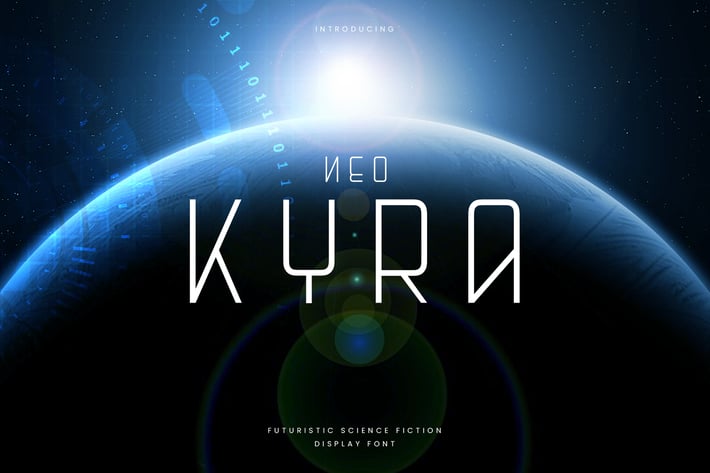
Neo Kyra - Technology Science Font
Introducing Neo Kyra font. Are you looking for a bold and solid display font that has a futuristic, science and space technology feeling? We can help! Try to download our Neo Kyra font. The font is suitable to use for many occasion such as game, science music, movie title, brand, technology, space and many more :)
Basic Latin A-Z solid